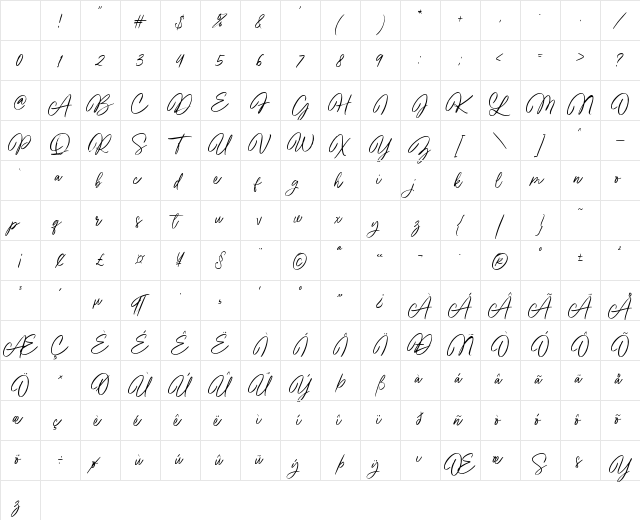
Complete Beauty Starlight Regular glyph index. Displaying only characters natively supported by Beauty Starlight Regular font.
Beauty Starlight is a composed and adaptable typeface that performs quietly and consistently across a wide range of design contexts. Its slender proportions lend an understated elegance to any composition.